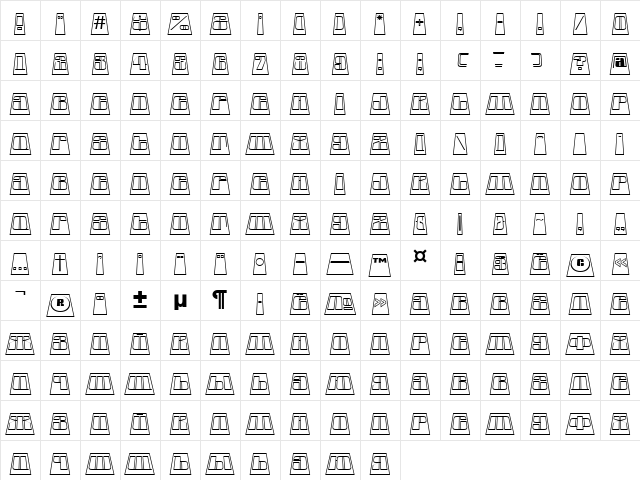
a_GlobusCmOtlLnBk Regular Free Font
a_GlobusCmOtlLnBk Regular
Design Context for a_GlobusCmOtlLnBk
a_GlobusCmOtlLnBk is a composed and adaptable typeface that performs quietly and consistently across a wide range of design contexts.